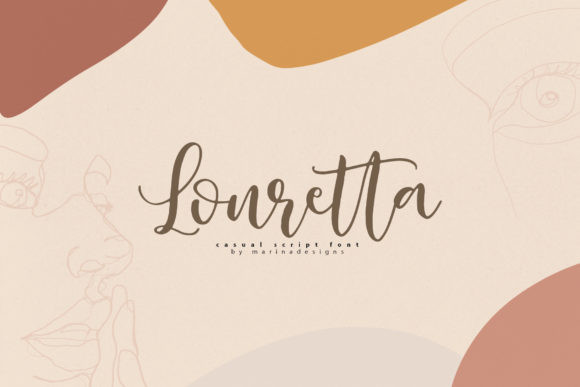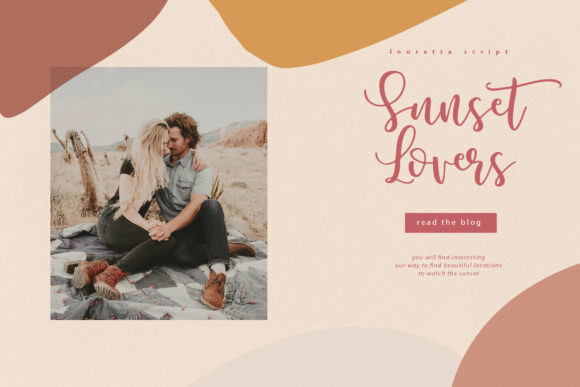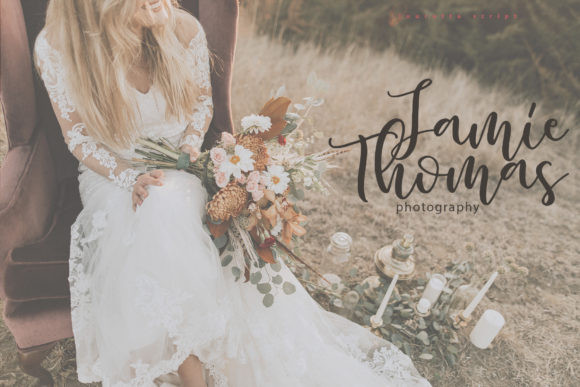
Louretta Font
Louretta is an elegant flowing handwritten font, perfect for your favorite projects. Fall in love with its incredibly distinct and timeless style and use it to create spectacular designs!